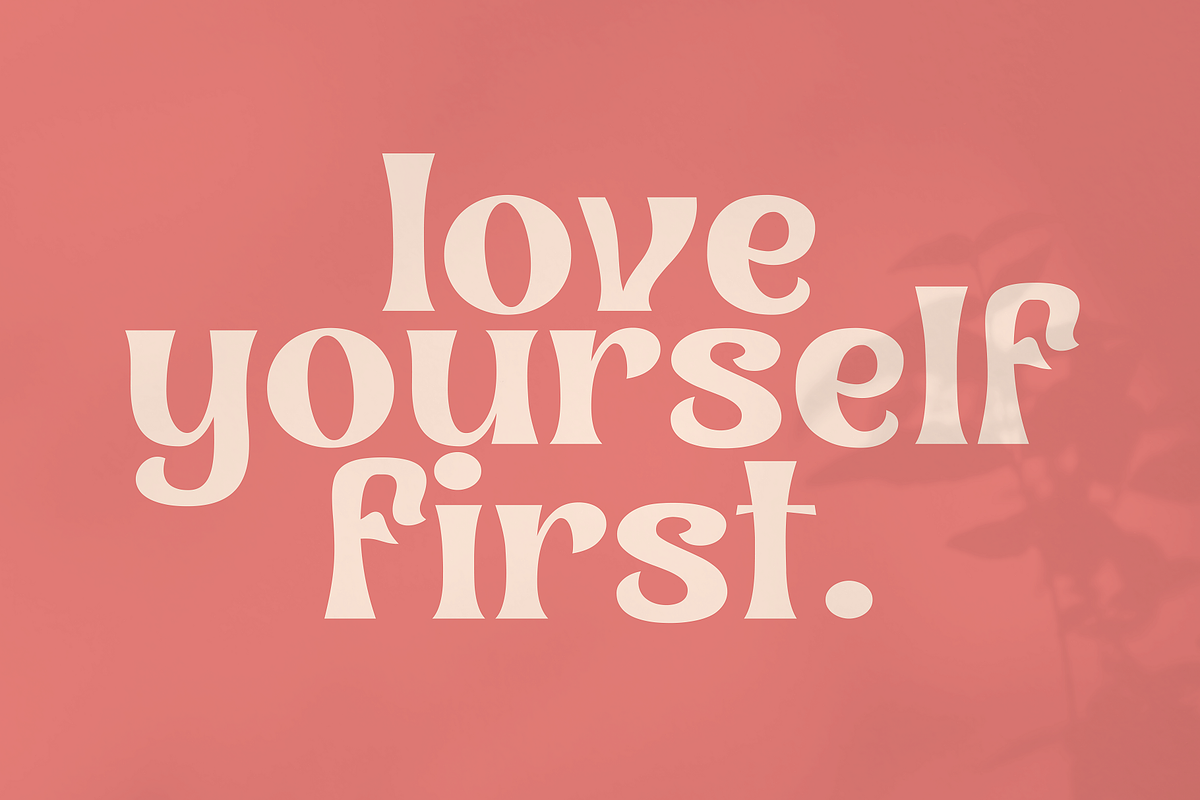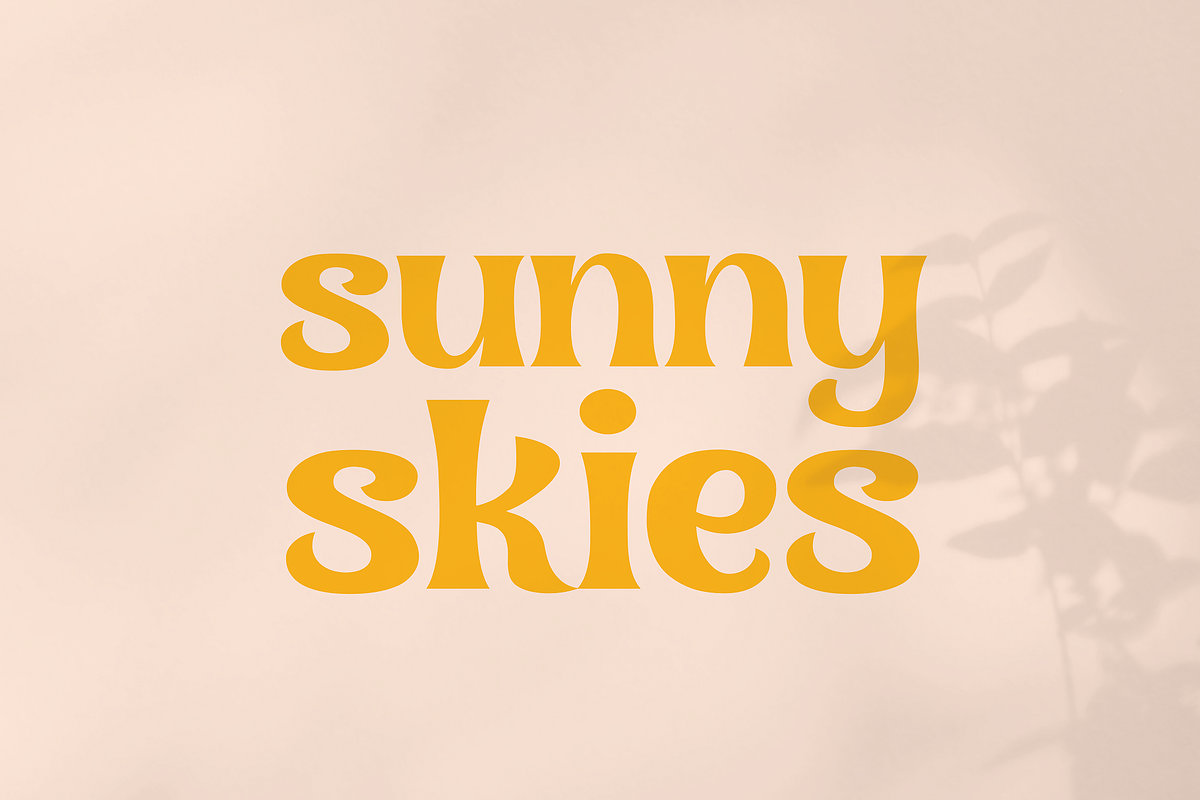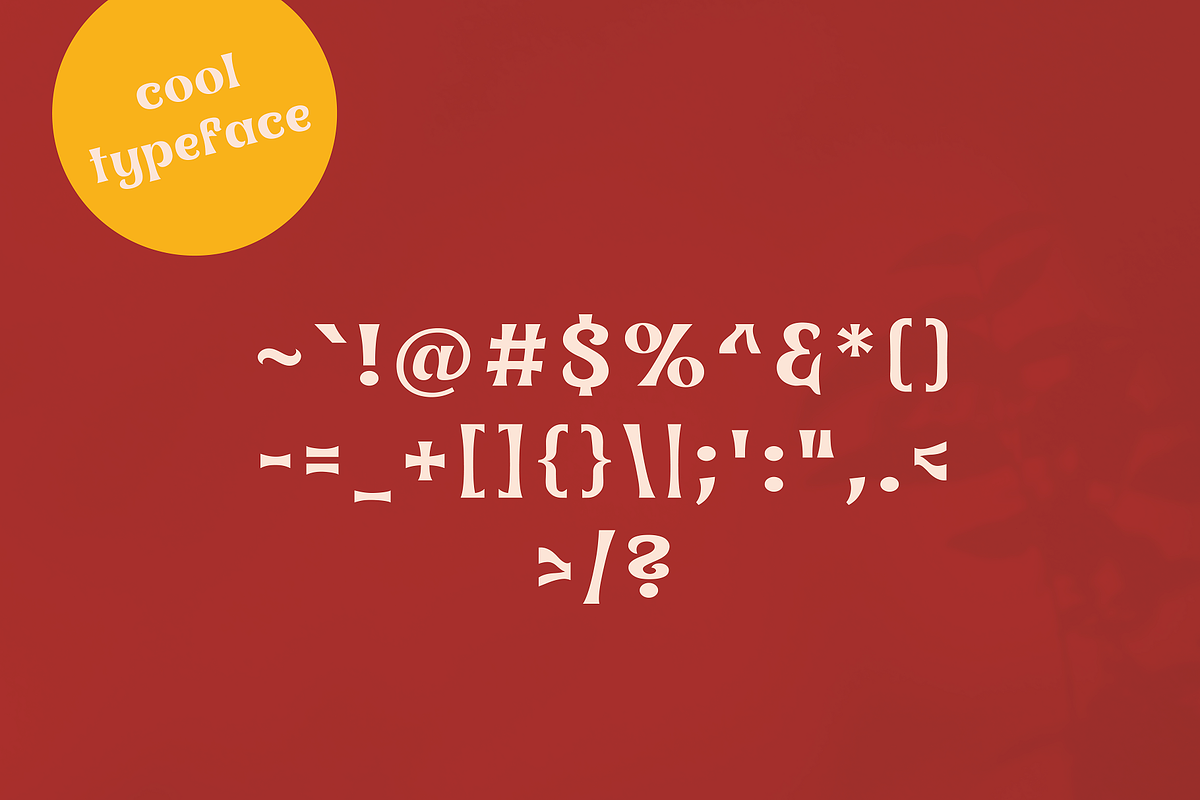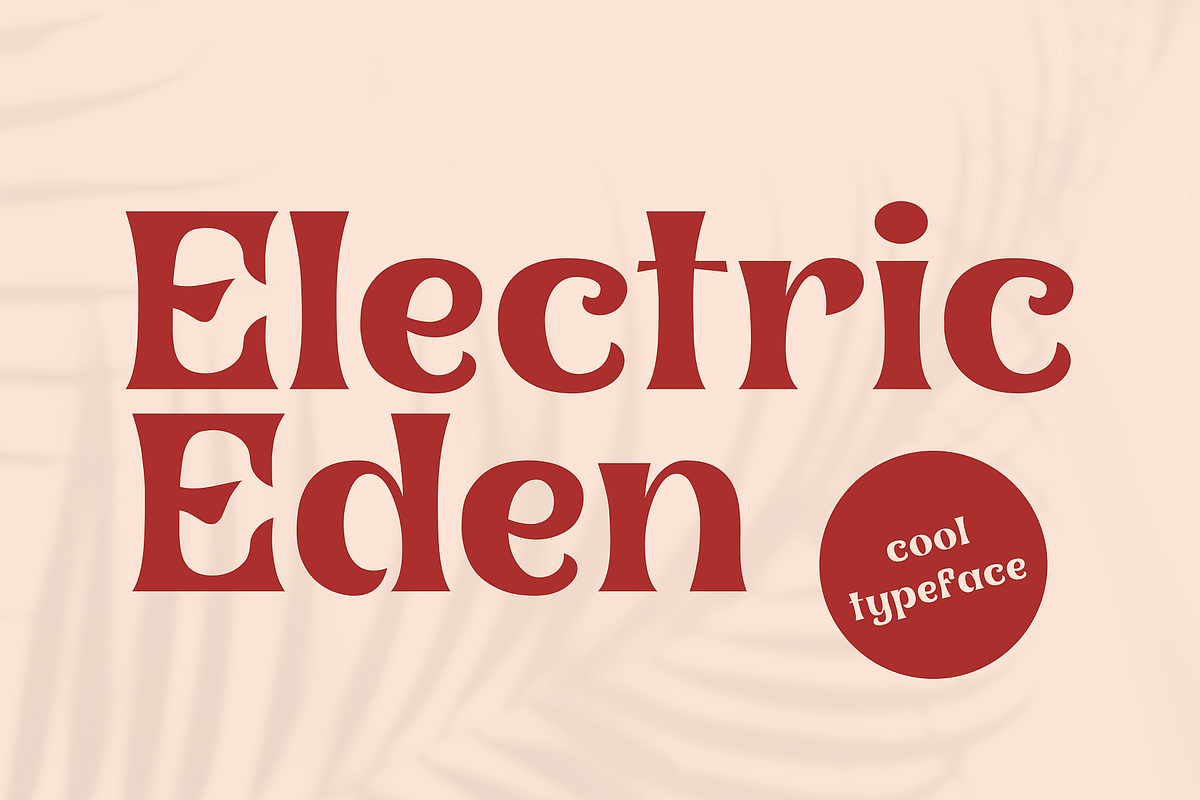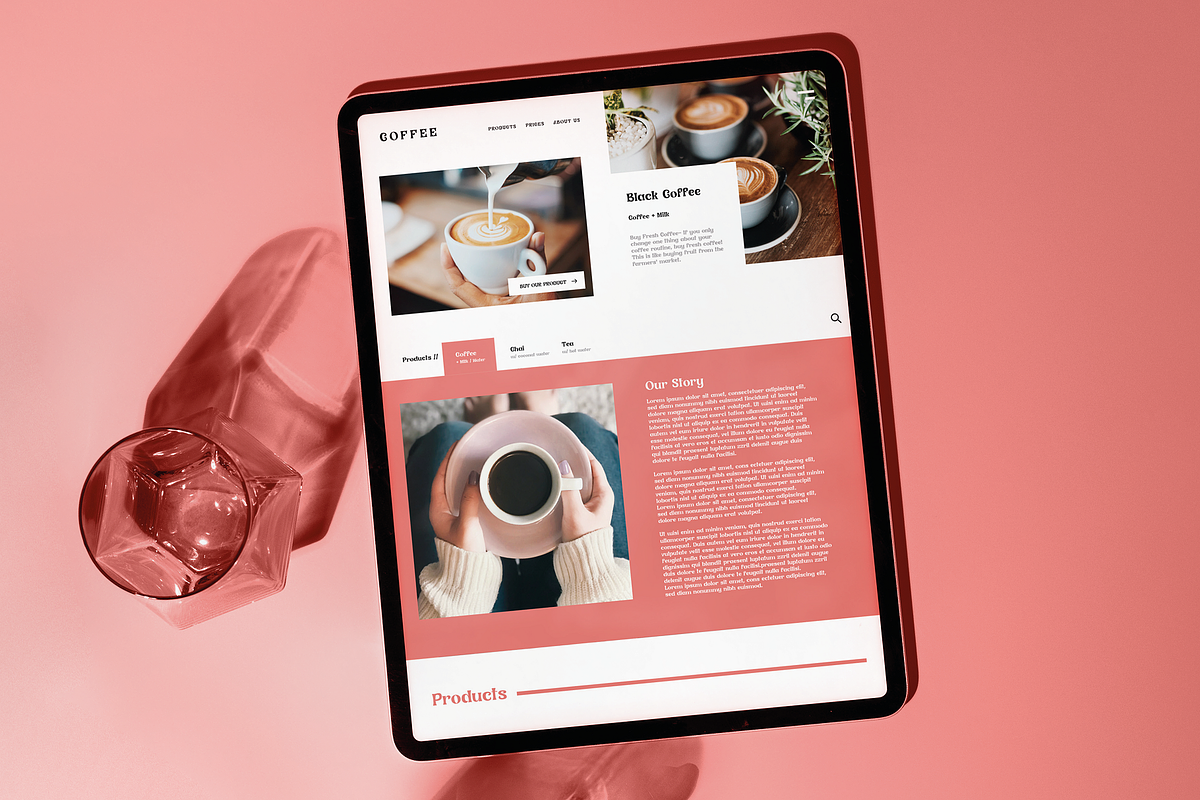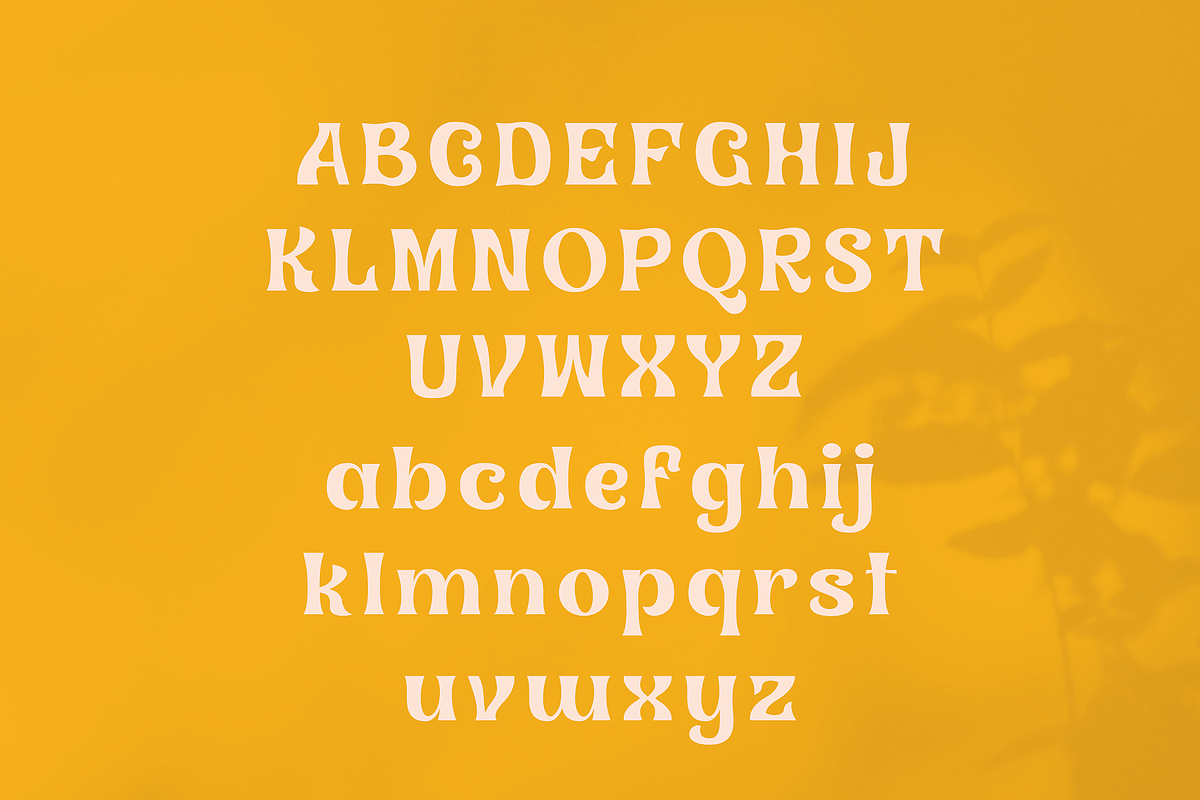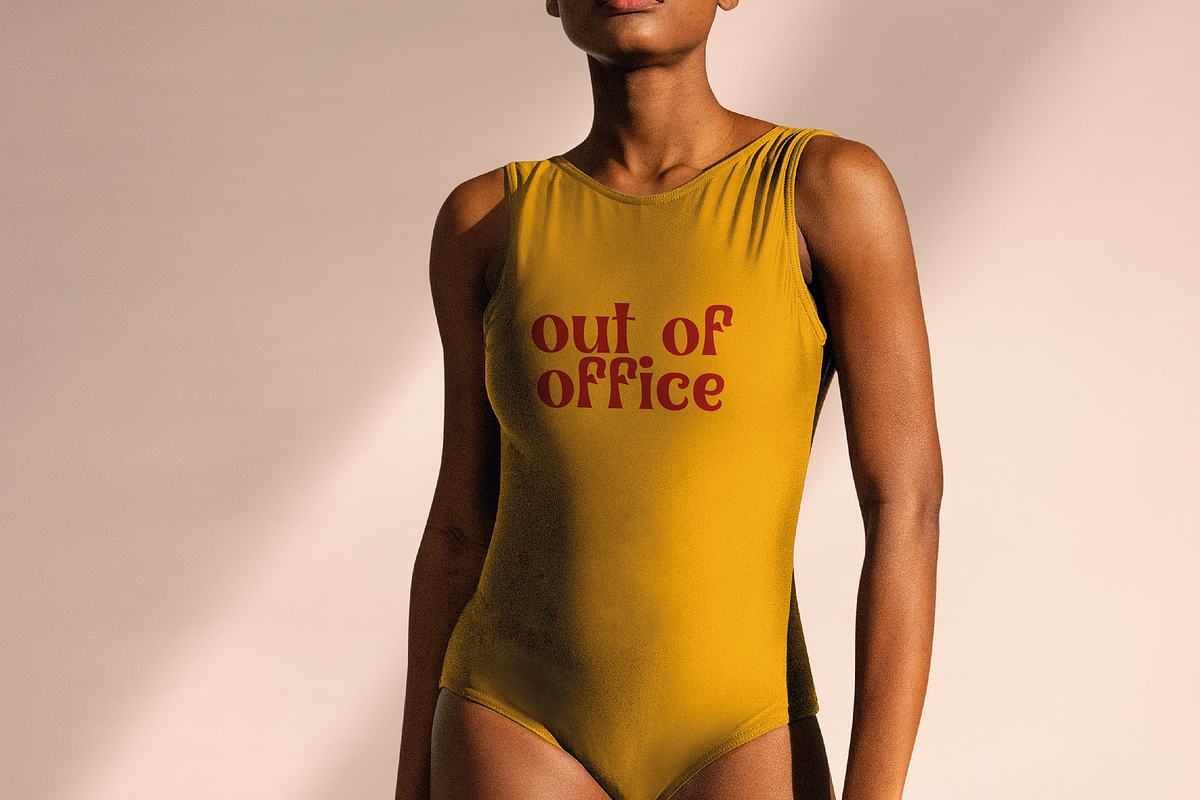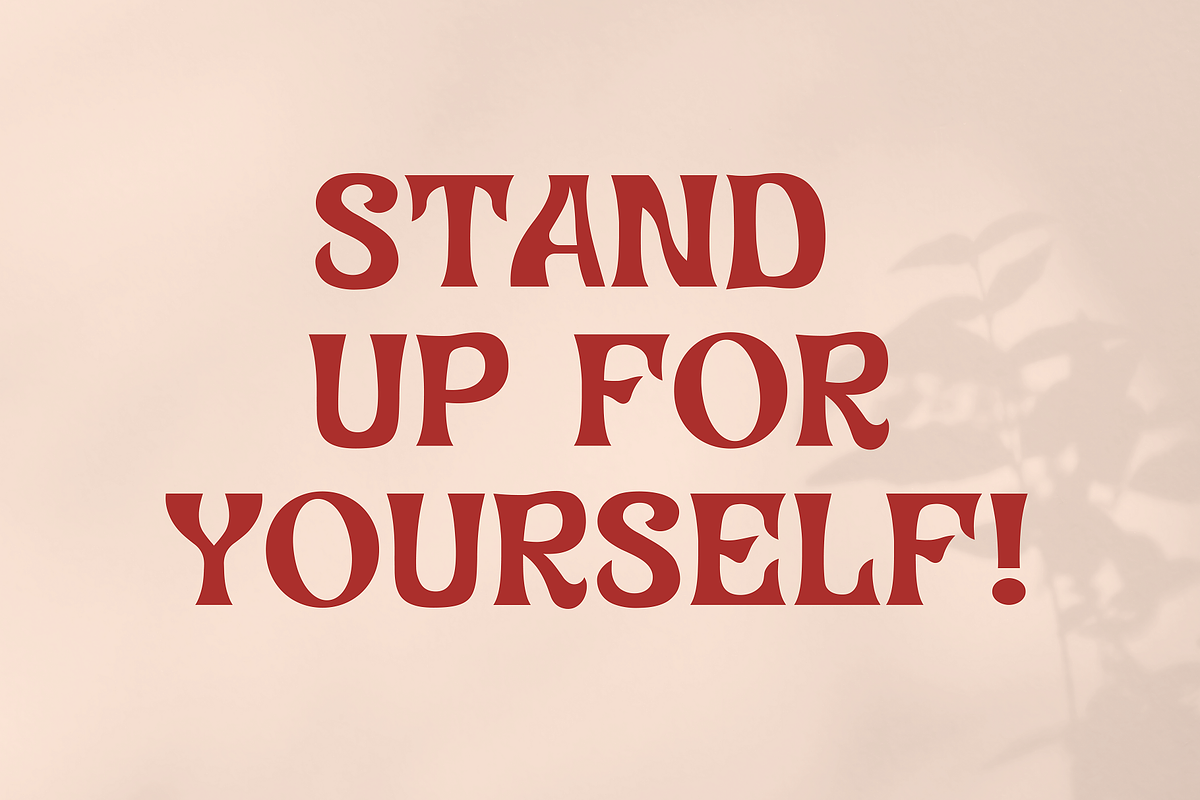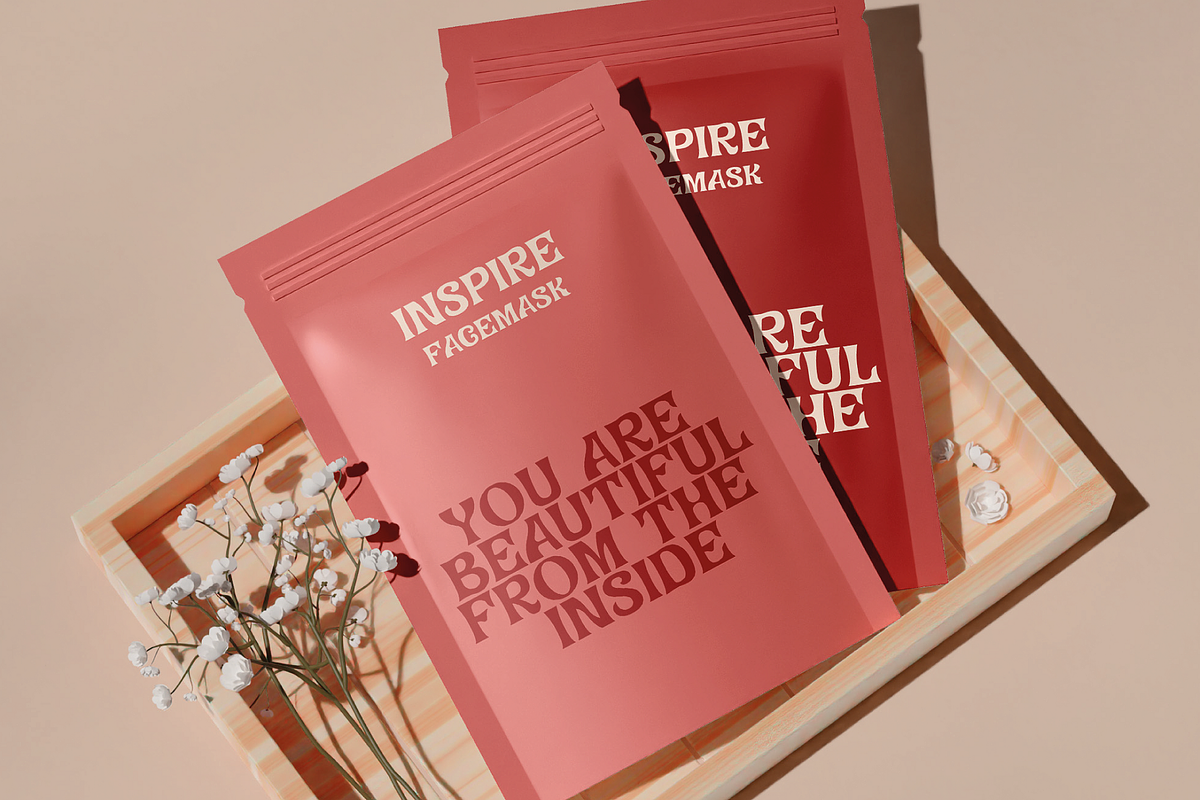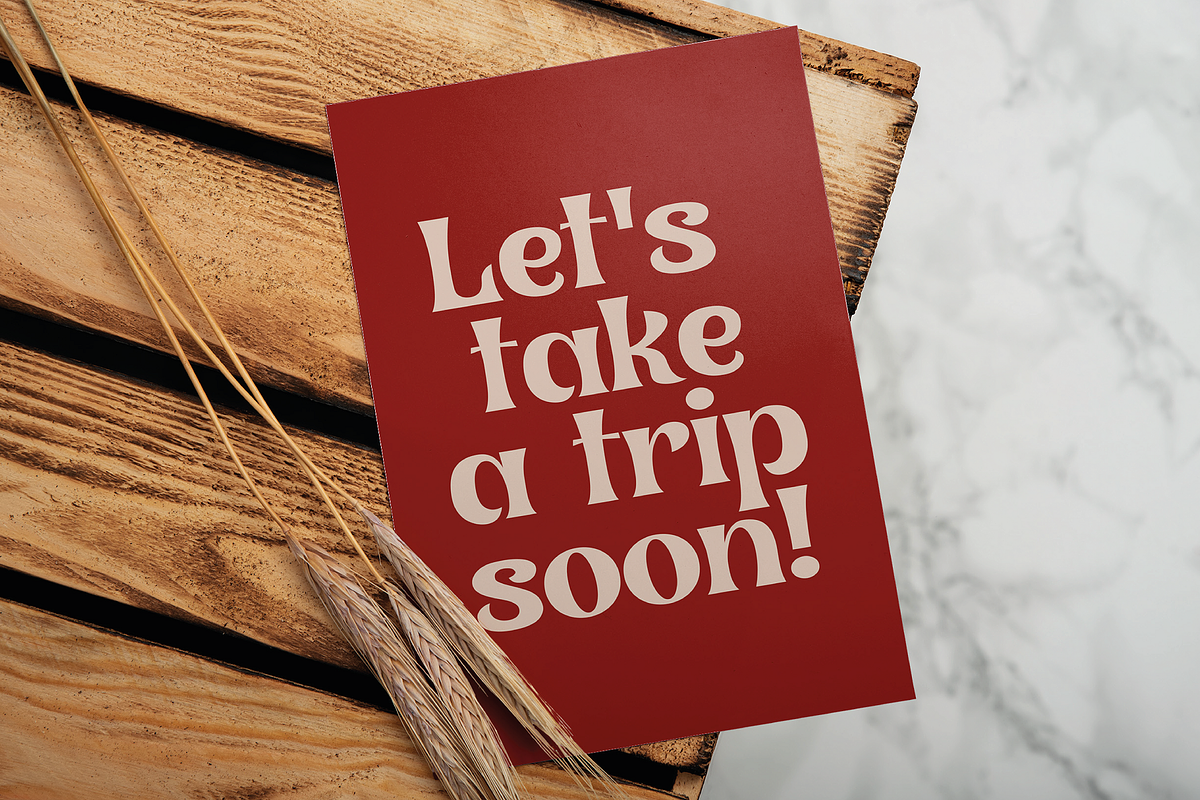
Electric Eden - Nostalgic Font
Electric Eden is a strikingly retro font that oozes nostalgia and vintage vibes. This font is reminiscent of the 1970s and 1980s, with its bold and vibrant curves that exude an electric energy.
The font's name is derived from the famous rock festival of the 1970s, and its design is a tribute to that era. The letters have a hand-drawn feel, giving it a touch of personality and uniqueness.
The Electric Eden font is perfect for designing posters, album covers, and other creative projects that require a bit of edginess and flair. With its vibrant colors and eye-catching design, this font is sure to transport you back in time to the heyday of rock and roll.